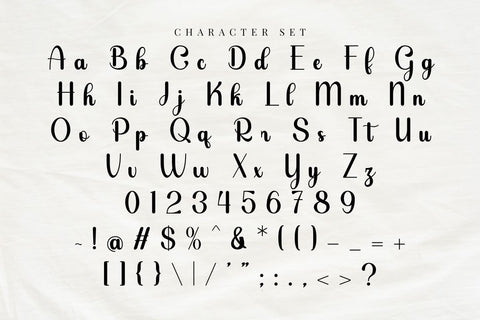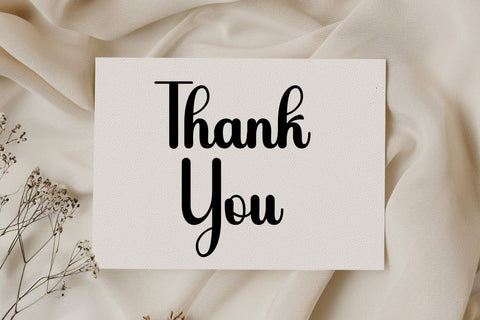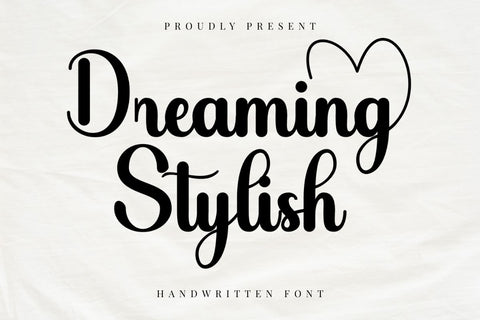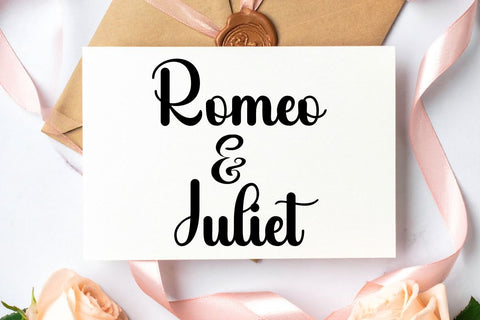
Dreaming Stylish - Modern Calligraphy Font
Dreaming Stylish is a sweet, cursive handwritten font with a soft and graceful character. Designed to bring a joyful and romantic feel, this font looks beautiful across a wide range of creative projects. Its elegant yet casual style makes it perfect for branding, logos, wedding designs, greeting cards, fashion materials, lookbooks, and marketing promotions. Whether you’re aiming for a fancy, elegant look or a warm handmade touch, Handmade adds charm and personality to every design.